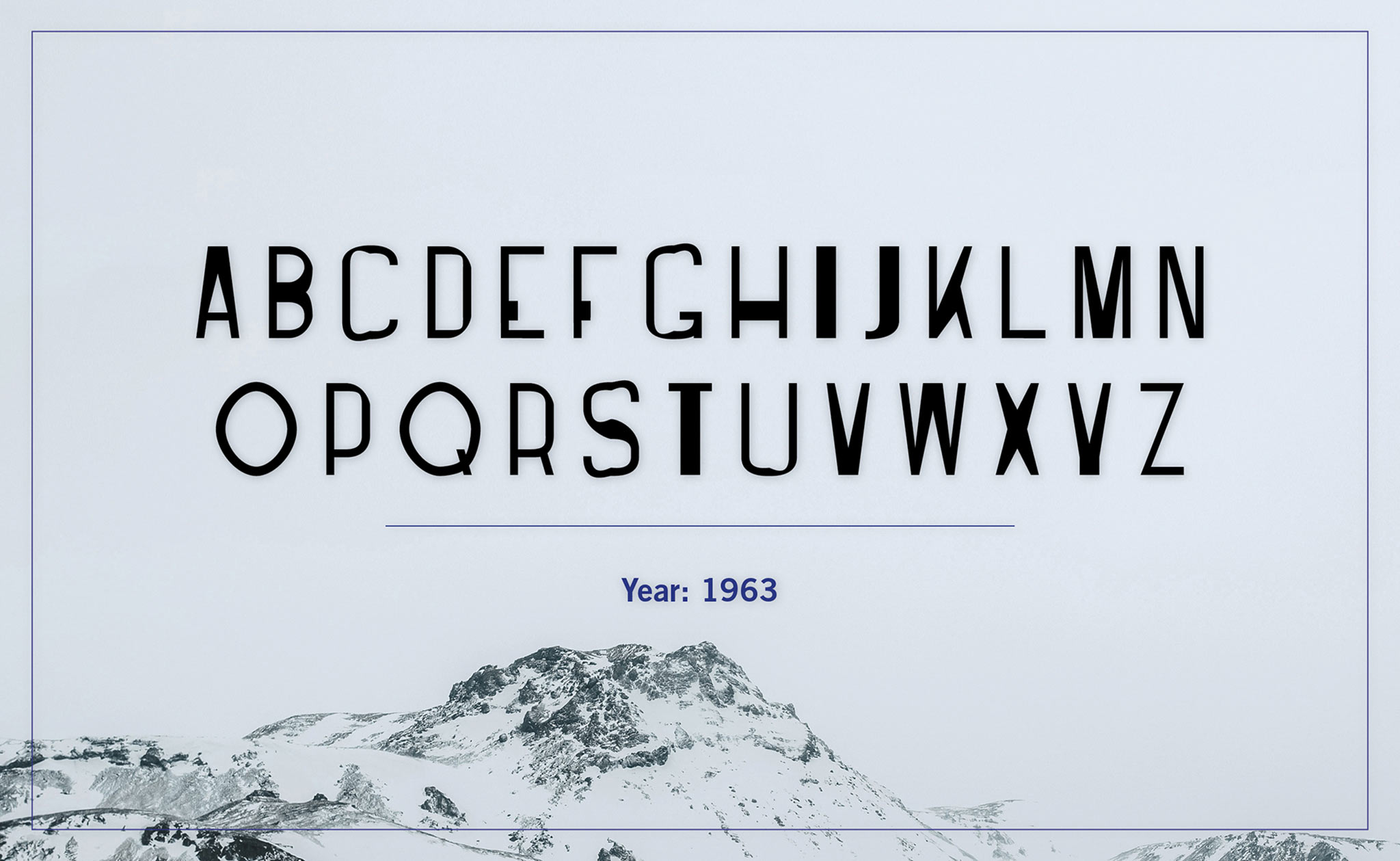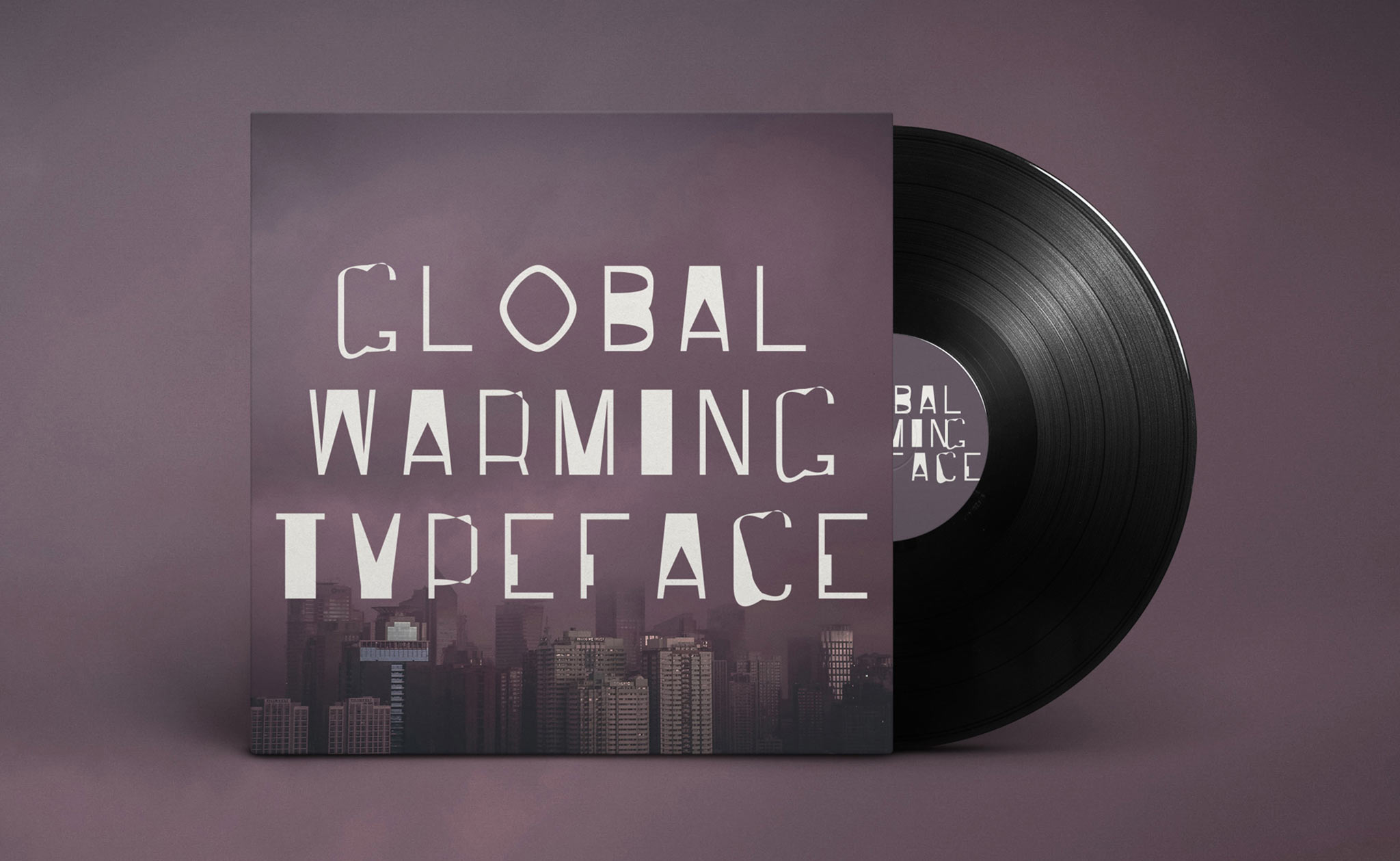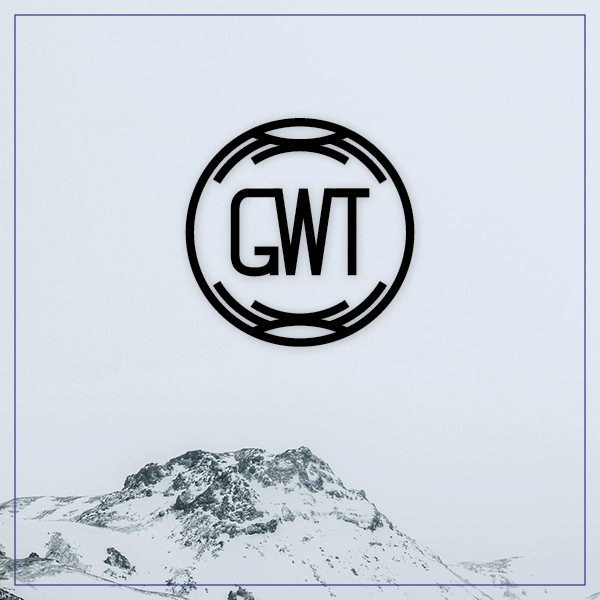
Unique font with implemented global warming data. This annually released font is a new and unusual method of data visualization in the graphic world and we already look forward to the day, on which we won’t have to release an updated version of the typeface ever again, because the human race actually managed to stop the global warming process. But until then we’ll start with five fonts for the years 1910, 1936, 1963, 1990, 2017
The Global Warming Typeface
Cuts: 1910, 1936, 1963, 1990, 2017